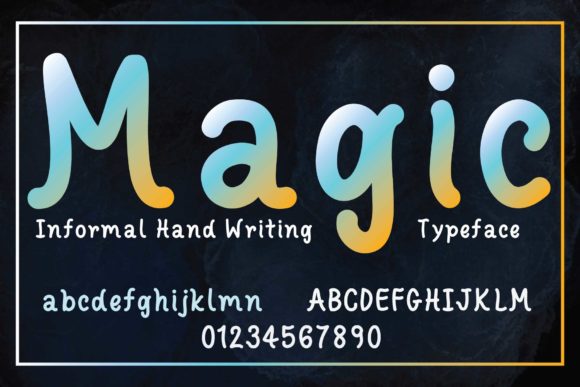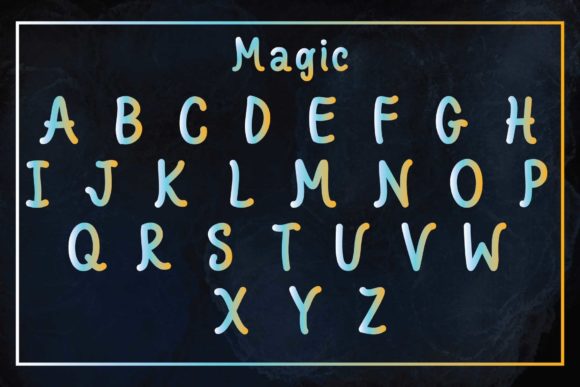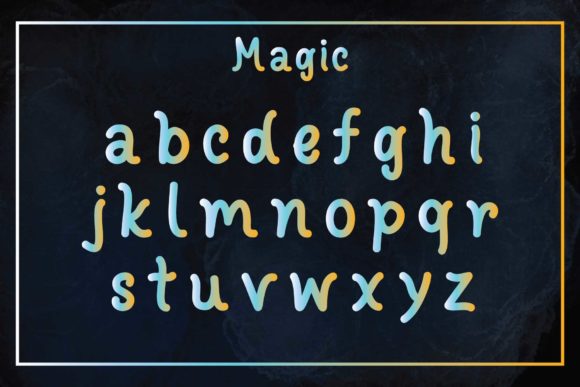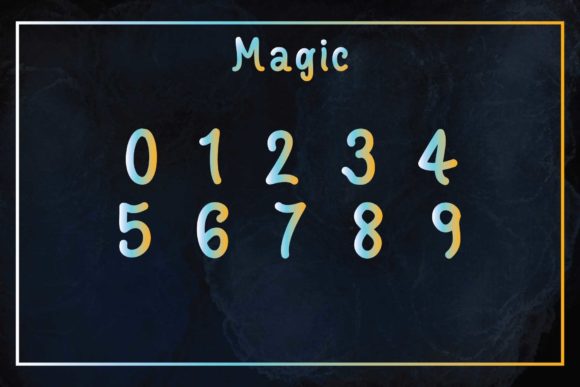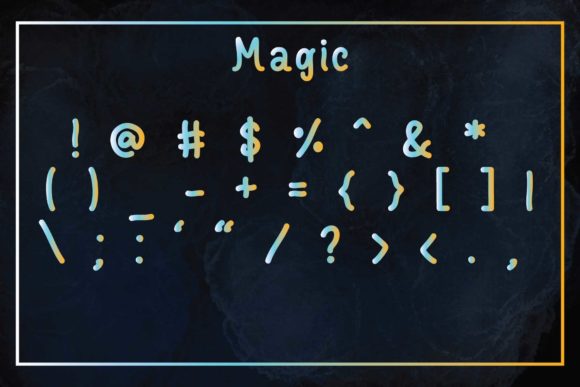
About Magic Font
Magic is a sweet and friendly handwritten font. Its natural and unique style makes it incredibly fitting to a large pool of designs. Add it confidently to your projects, and you will love the results.